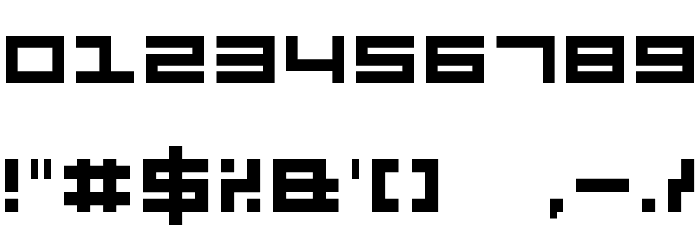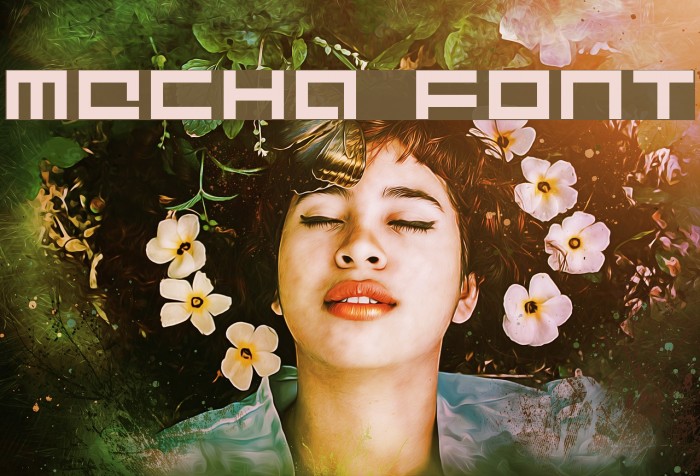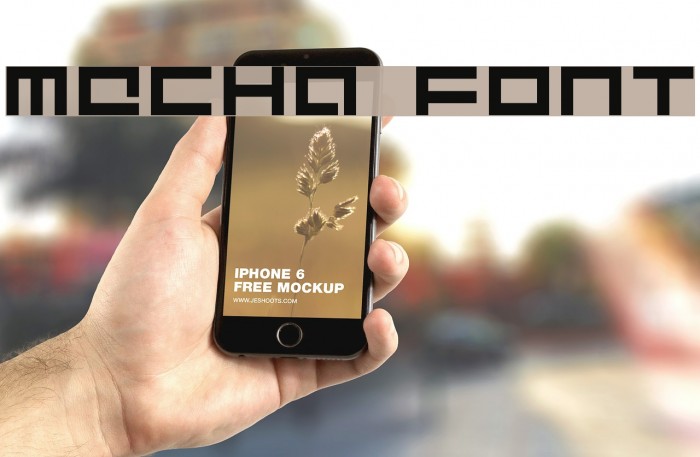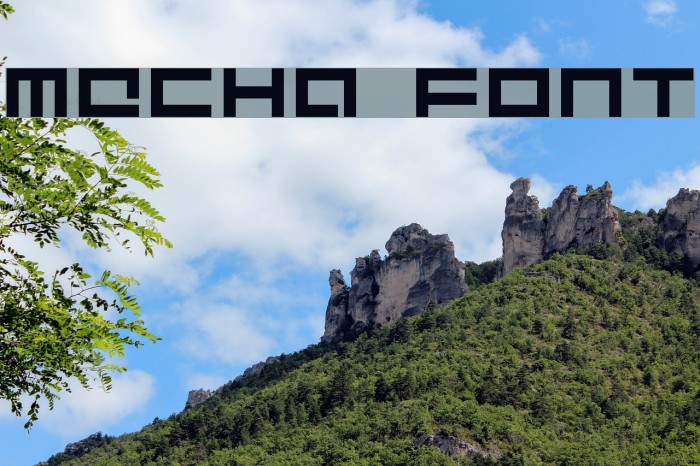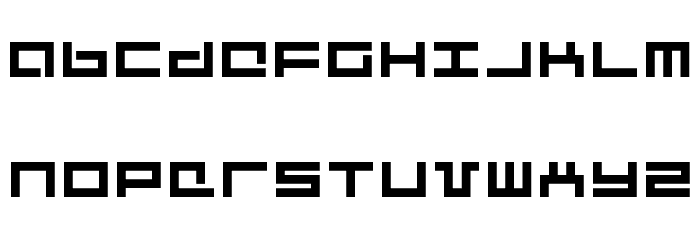
Mecha Font
Mecha Description
This font features a futuristic, geometric design with a blocky, pixelated appearance. Each character is constructed with sharp angles and straight lines, giving it a distinctly digital and mechanical feel. The uniformity in the height and width of the characters contributes to a cohesive and structured look, reminiscent of early computer graphics or retro video games. The font's bold presence is emphasized by its consistent stroke weight, which maintains a medium contrast throughout. Its unique style makes it particularly suitable for projects that aim to convey a sense of technology, innovation, or a nod to the digital age.
A futuristic, geometric font with a blocky, pixelated design from Pixel fonts.
- ( Fonts by dustBUST - Andreas Nylin FREE )
- Proposed Projects: Ideal for tech-themed posters, video game titles, digital art projects, and branding for technology companies.